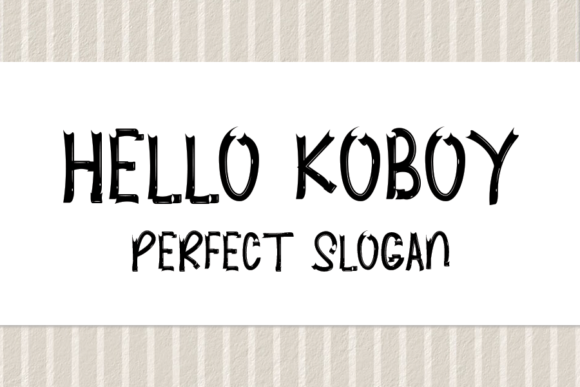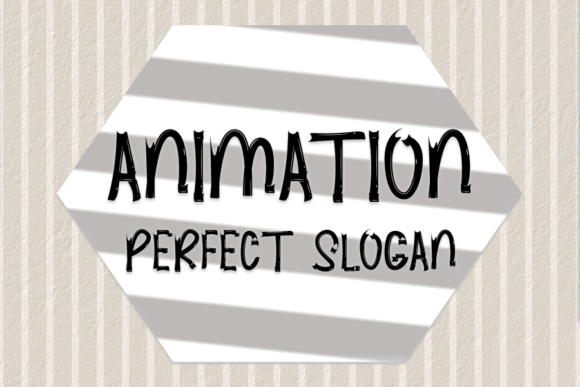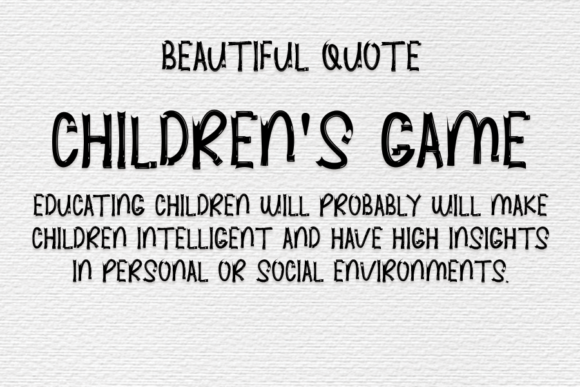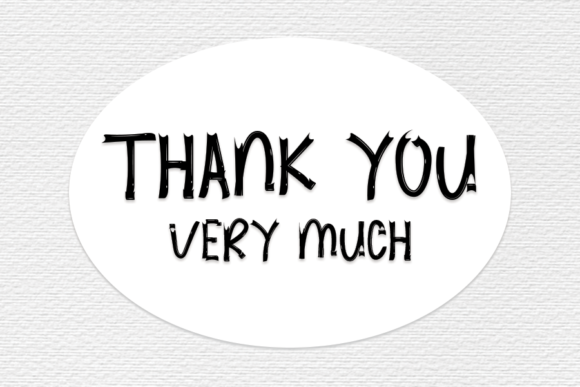
Introduction to Graphic Plant Font
Graphic Plant is a beautiful and attractive font.
Clean and a little bit quirky, this font is the perfect fit for all of your logos, branding, social media, and crafty DIY projects .
Key Features of Graphic Plant Font
Why Choose Graphic Plant Font?
Graphic Plant Font offers exceptional quality and versatility, making it a valuable addition to your design toolkit. Whether you’re creating for personal projects or commercial use, Graphic Plant Font delivers professional results.